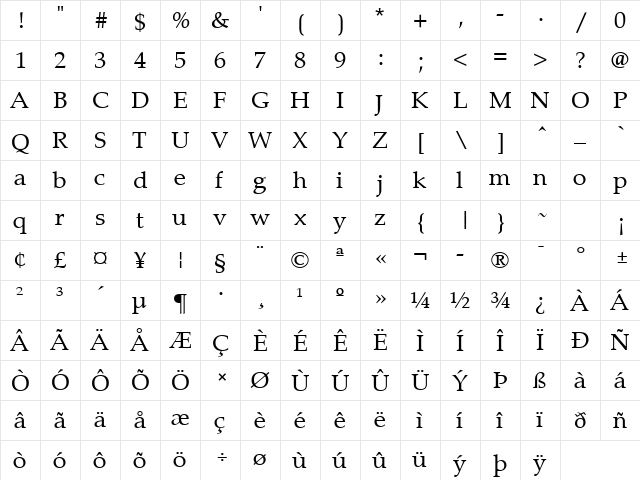
Portugal Roman Font Preview
Portugal Roman
Portugal Roman Font Details
Design Context for Portugal Typeface
Portugal takes a measured approach to typography — its balanced proportions and neutral character make it a reliable workhorse for both digital and print work.